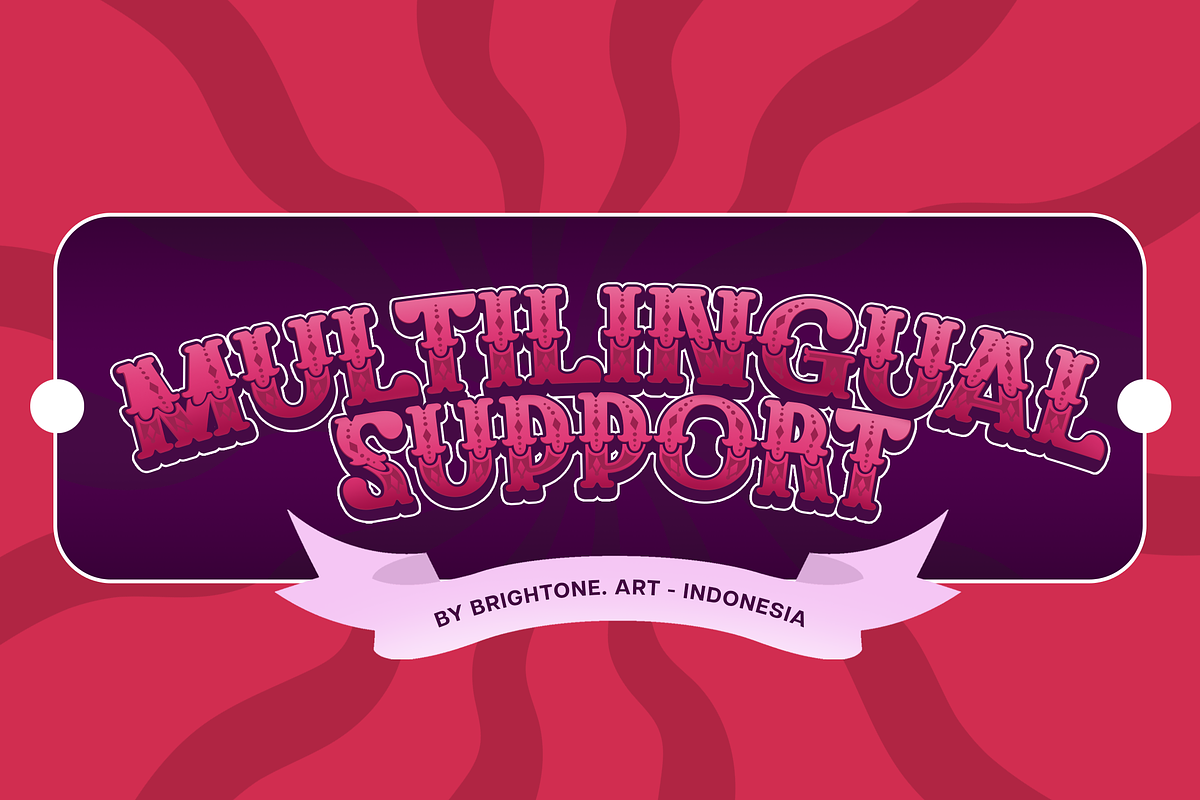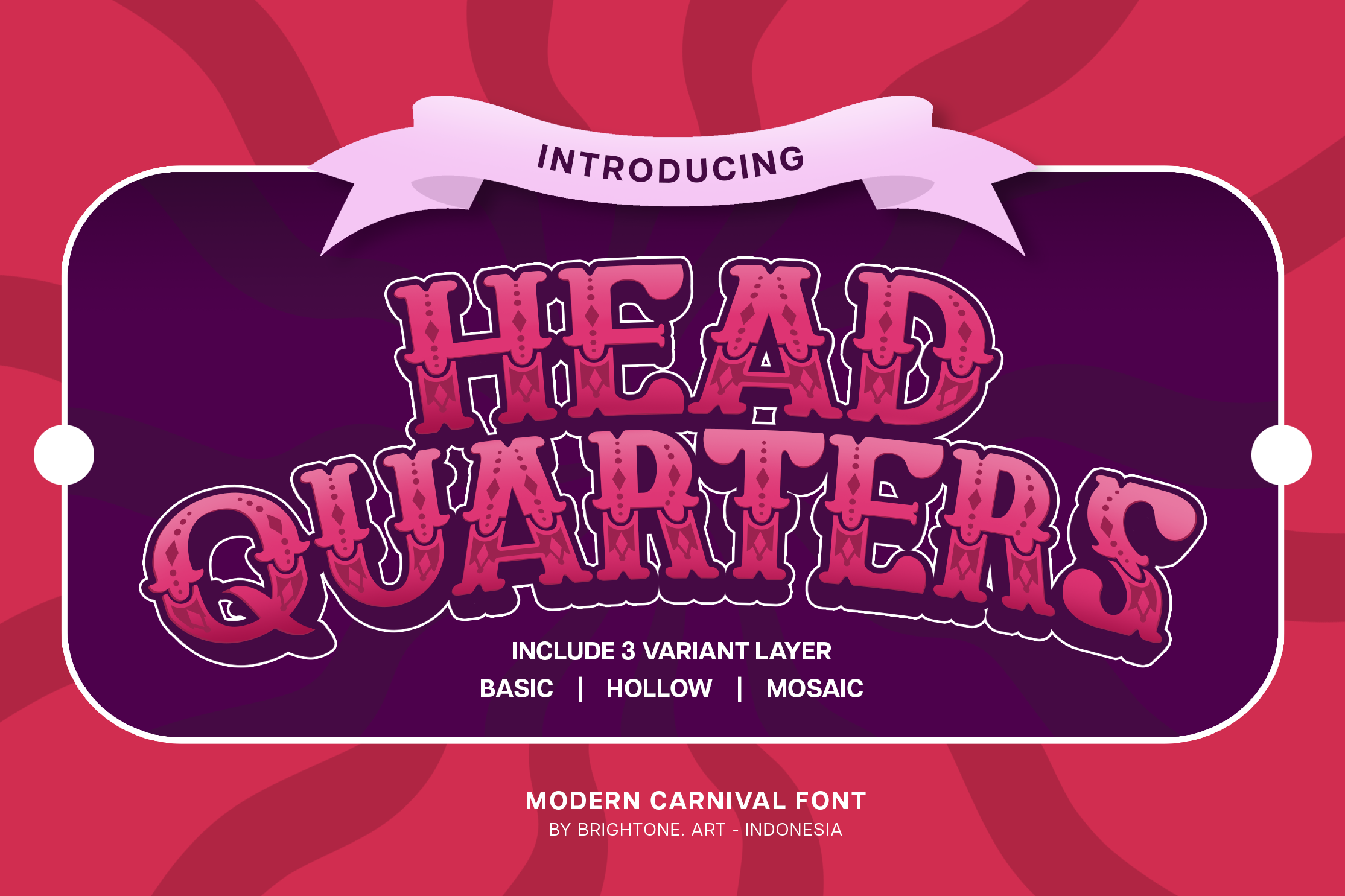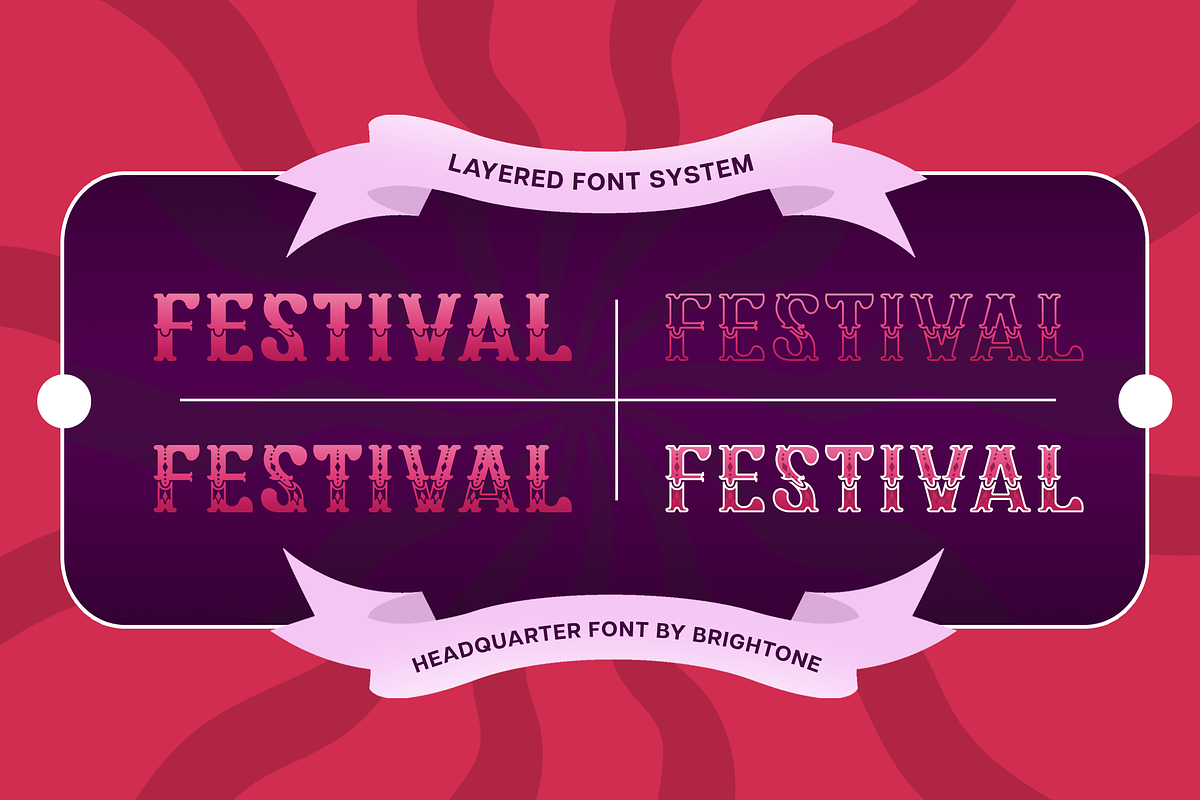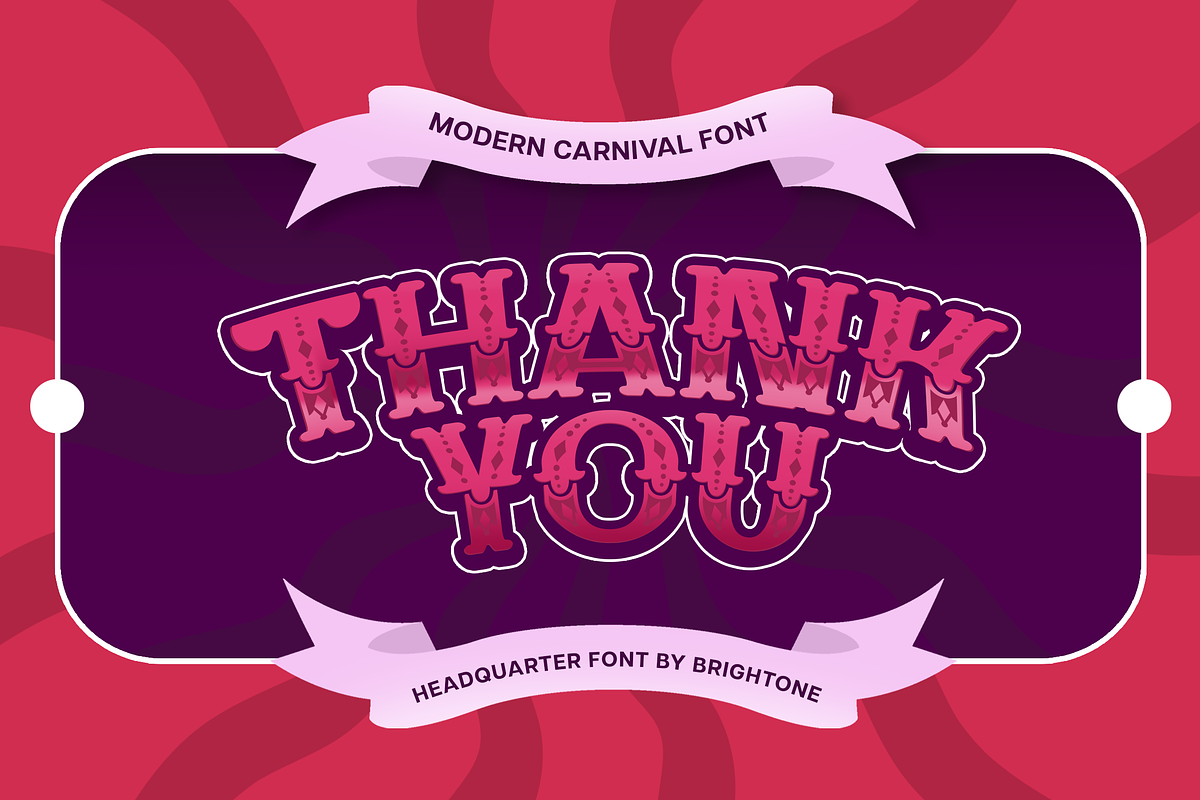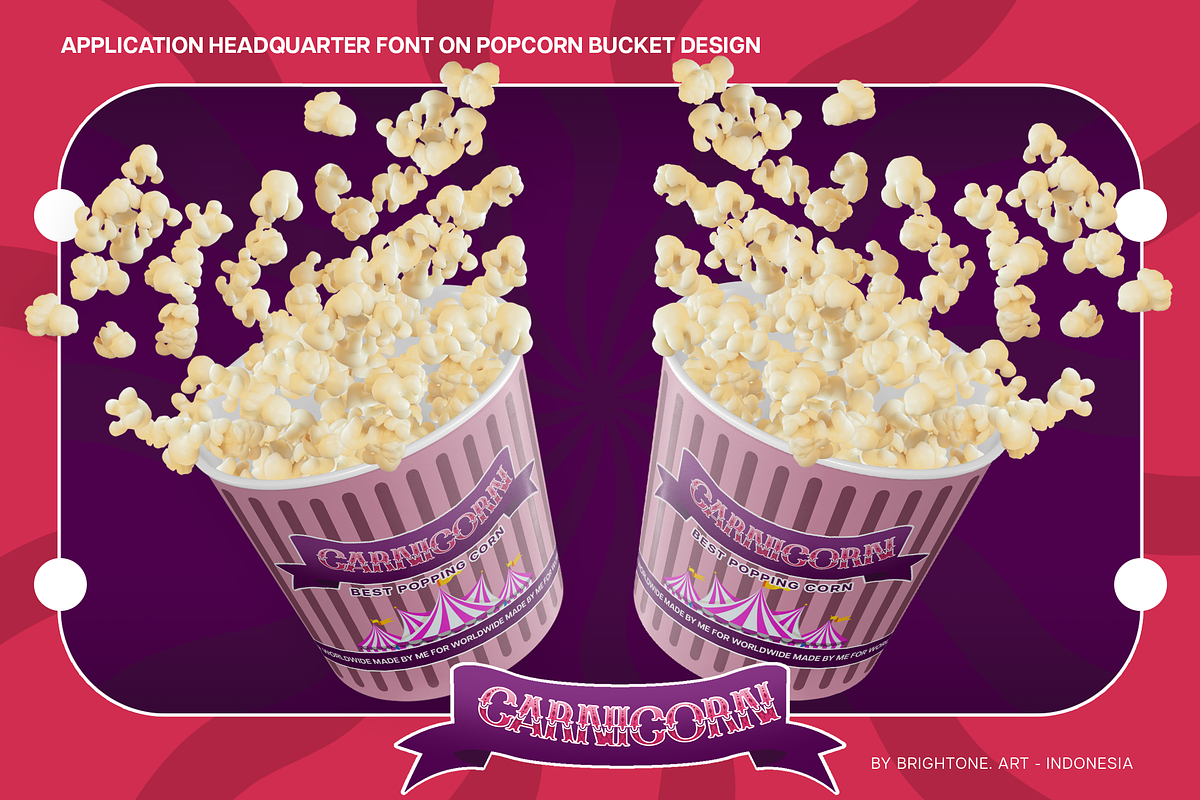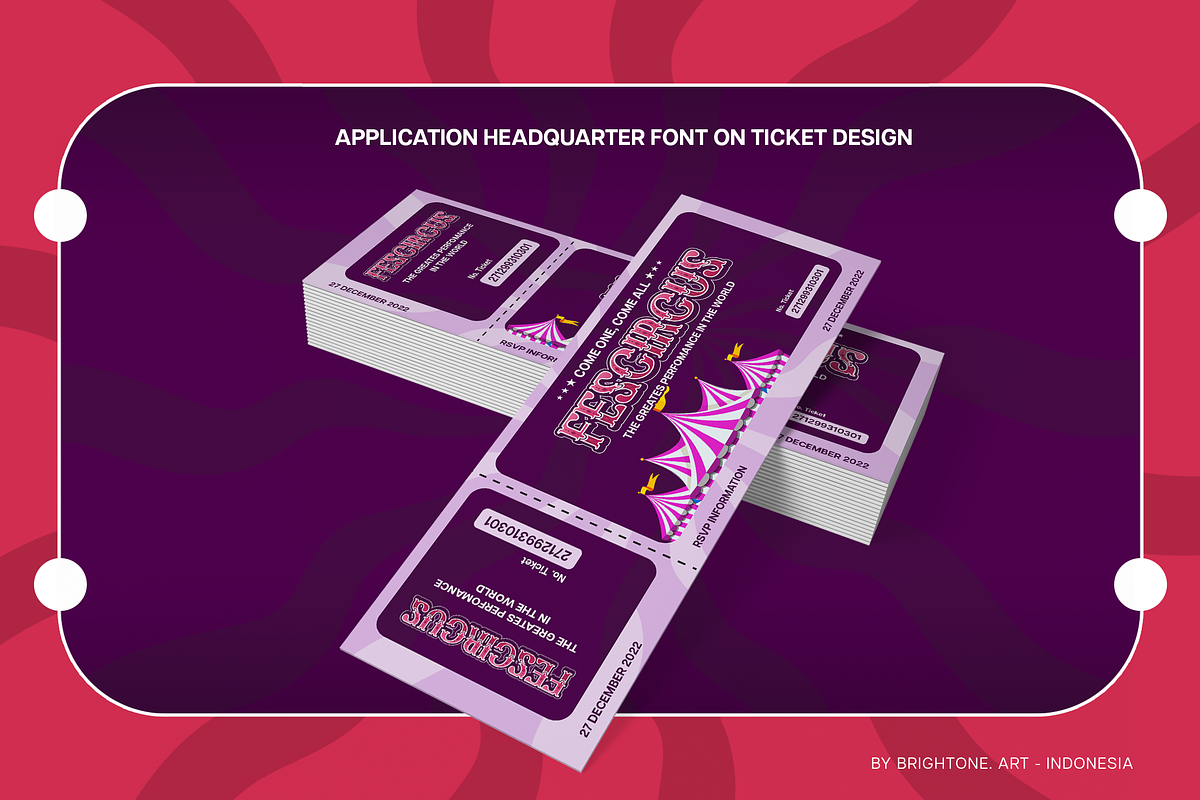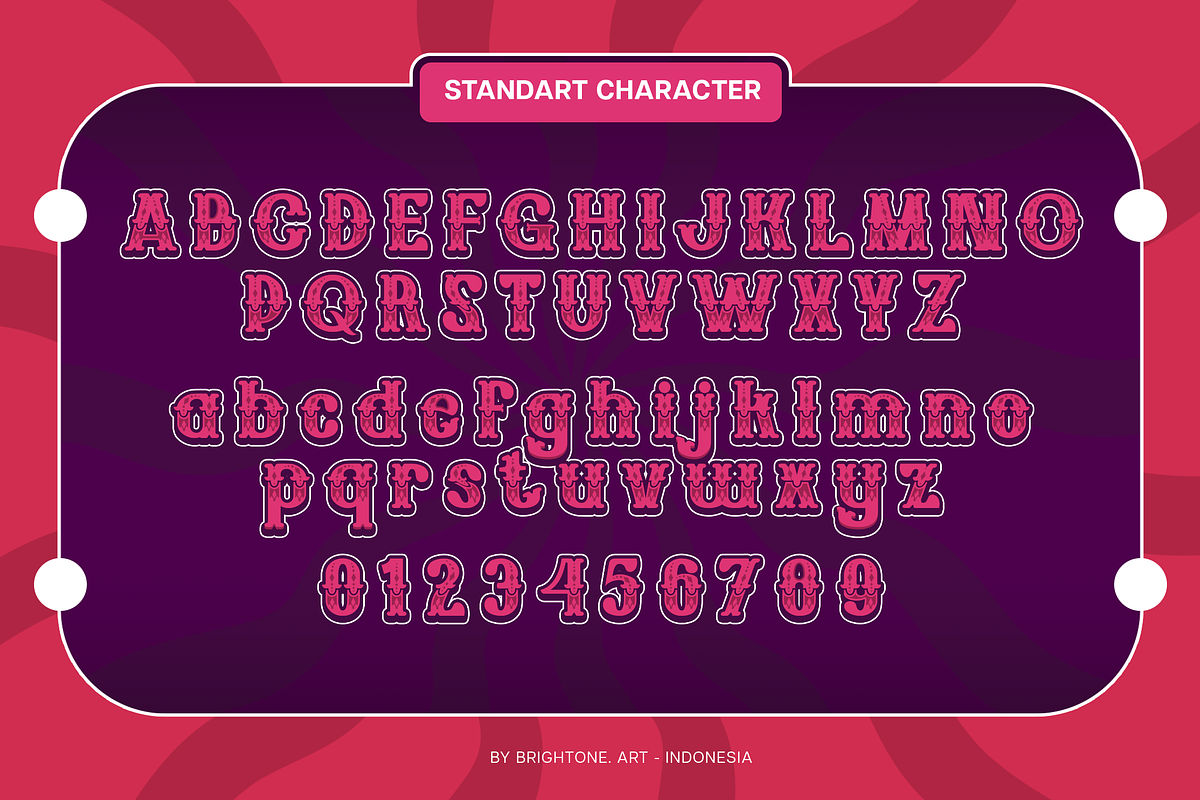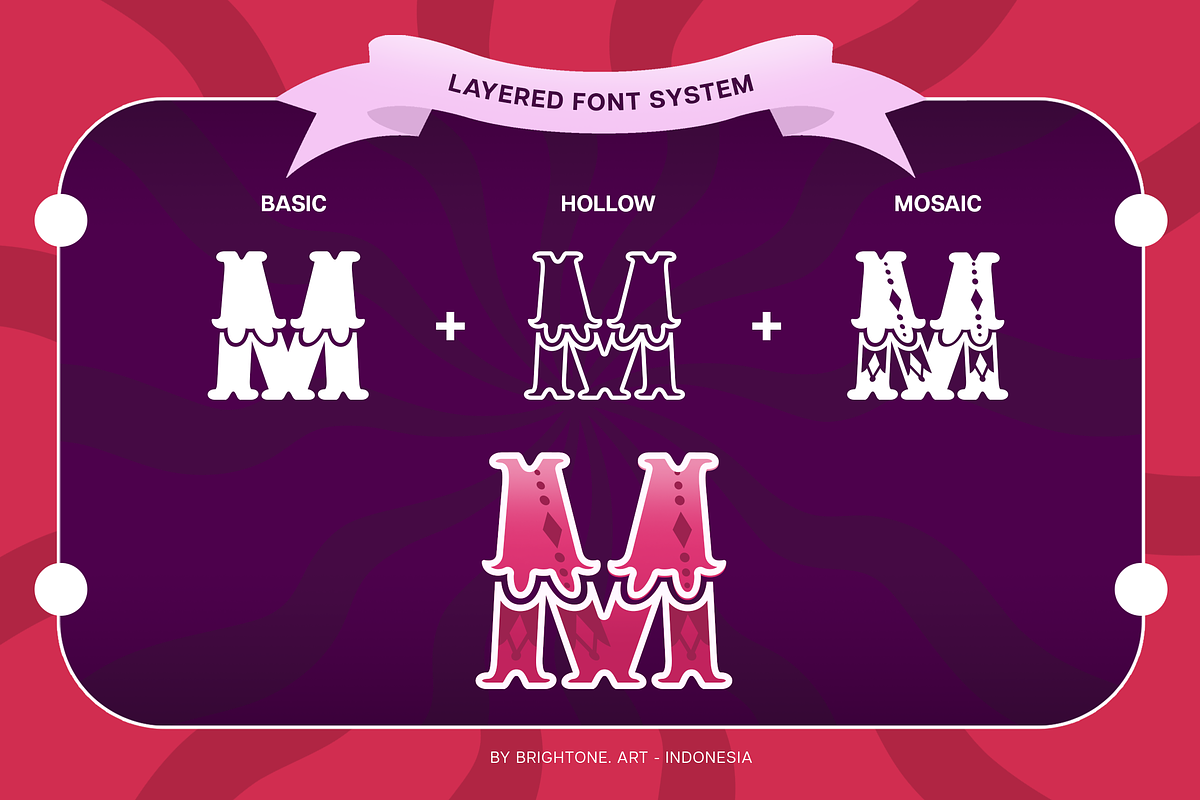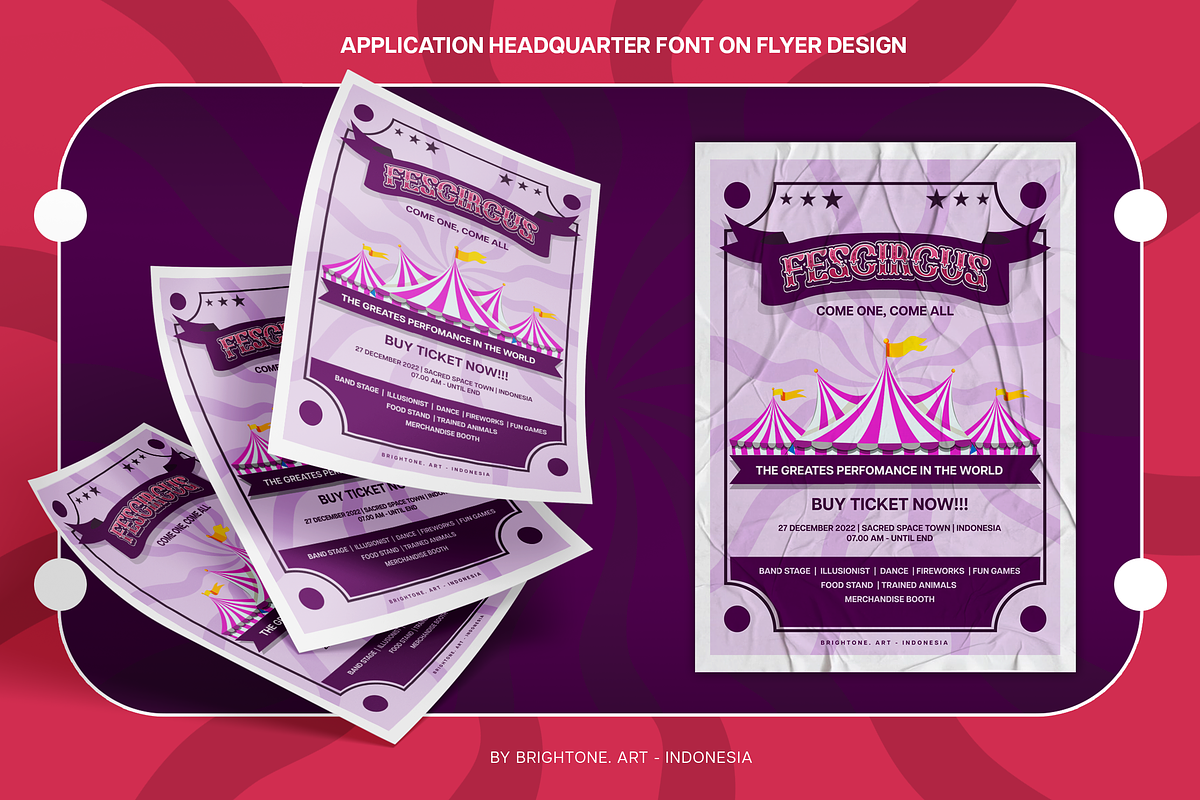
Headquarters - Slab Carnival Font
HEADQUARTERS is slab serif font with good combination carnival style, these font includes:
- Uppercase and Lowercase Characters, Numbers and Punctuation.
- Multilingual Support (Eastern, Central and Western European countries).
HEADQUARTERS comes in 3 different styles:
- HEADQUARTERS - Basic
- HEADQUARTERS - Hollow
- HEADQUARTERS - Mosaic
HEADQUARTERS font is suitable to use for all purpose for your logo lettering, logo, label, packaging, sticker, branding and many more.